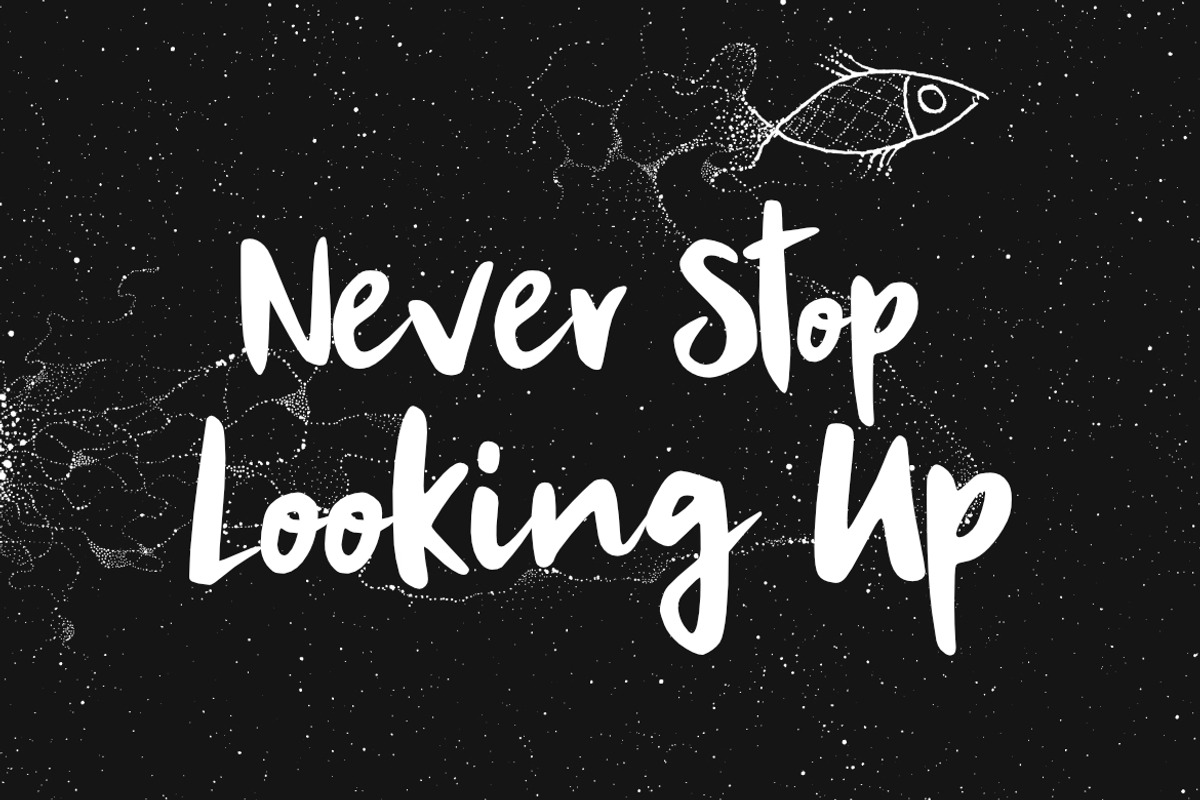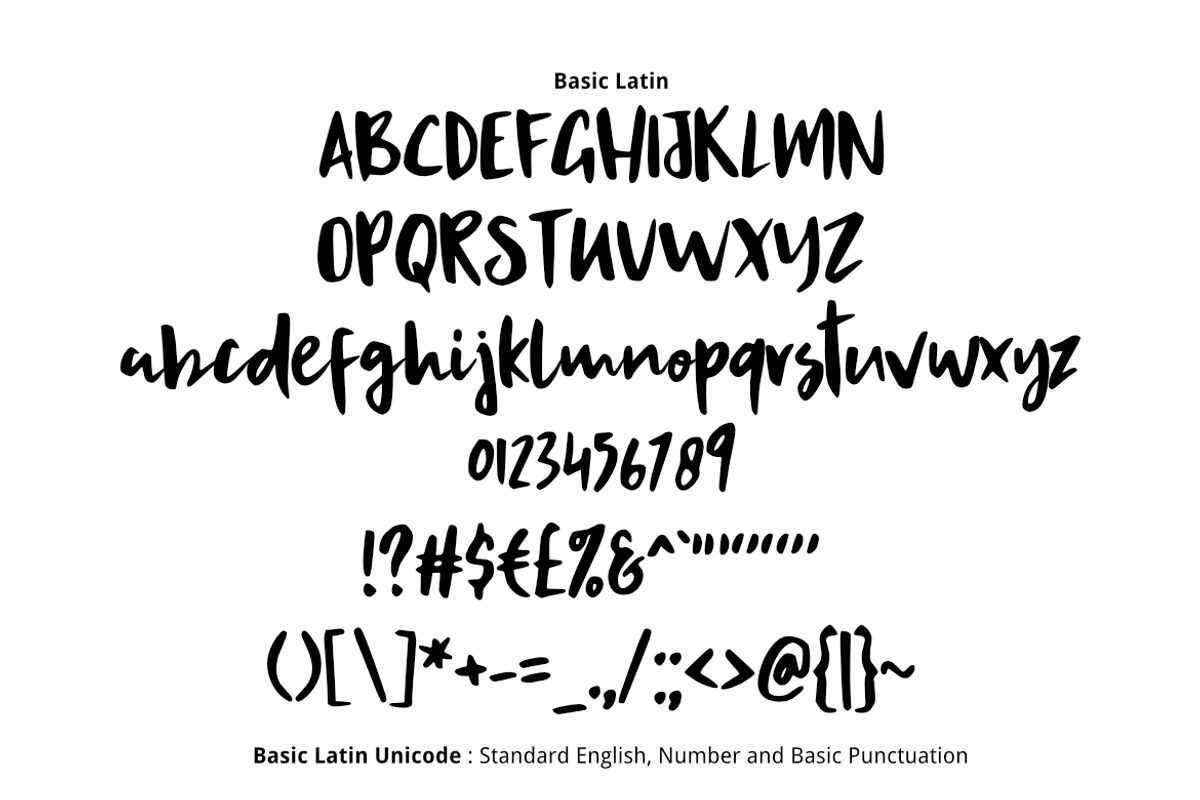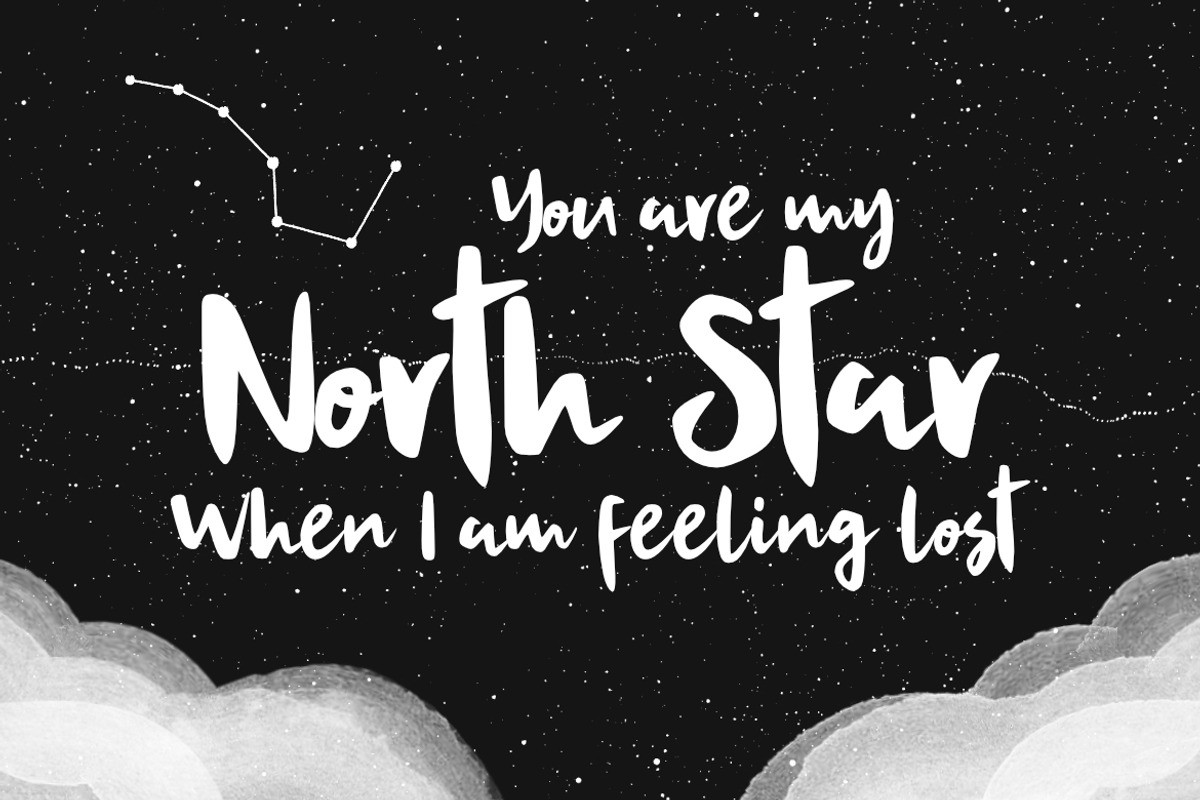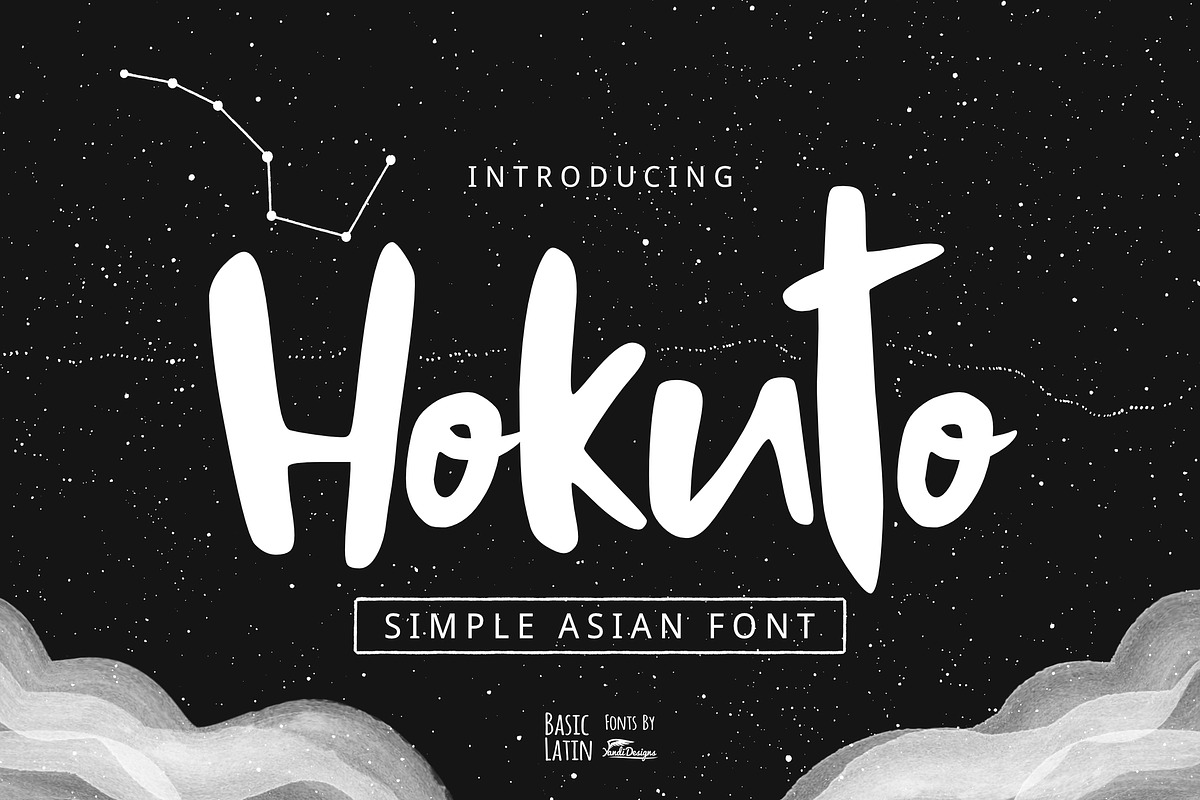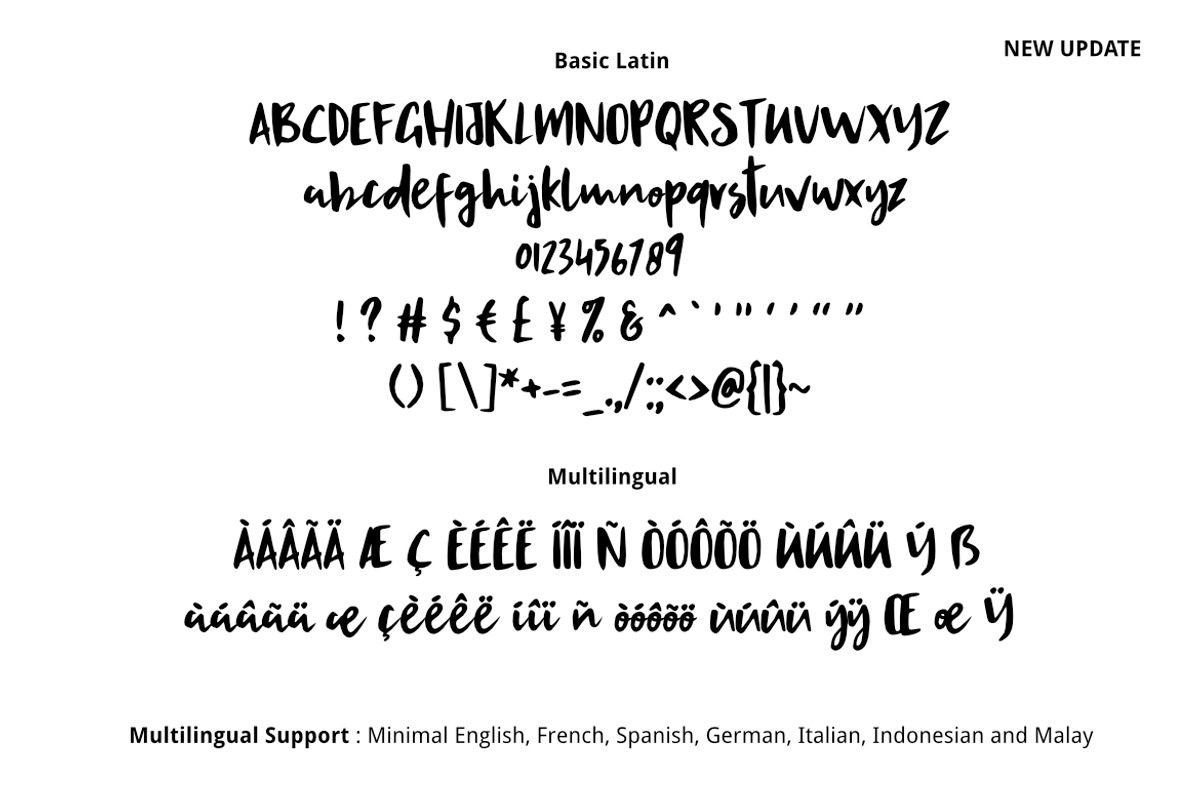
Hokuto Asian Font
Hokuto "The North Star" is lovely, cute, simple, artistic Asian Japanese multipurpose font , suitable for many project children book, quotes, logo , heading , title etc.
10 17 2020 Add Multilingual Support for minimal English, French, Spanish, German, Italian
Hokuto Asian Font by YandiDesigns fits naturally into Branding, posters, packaging, typography.